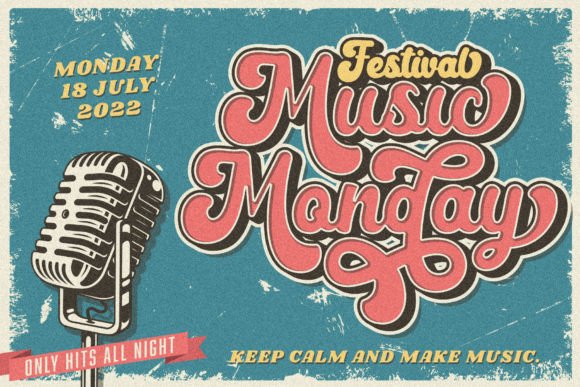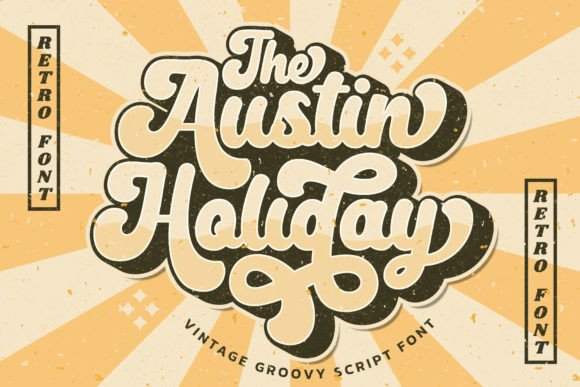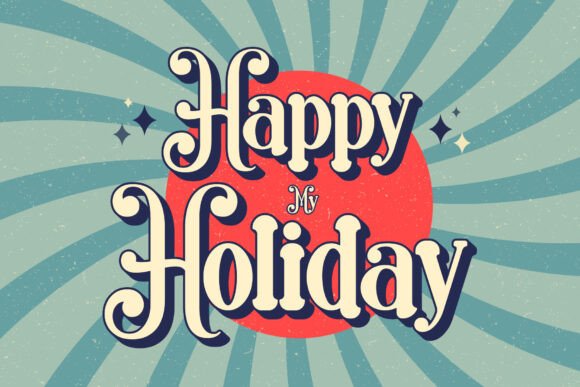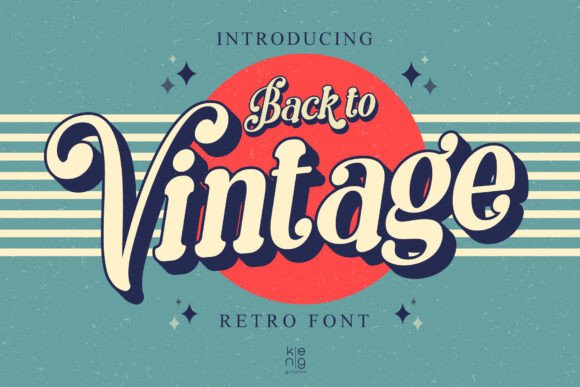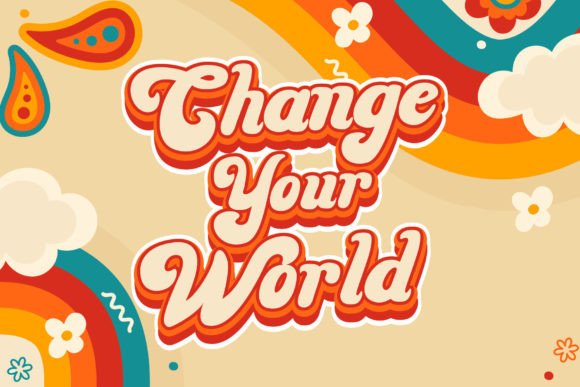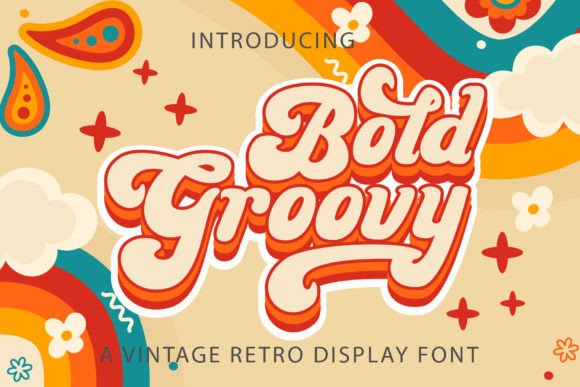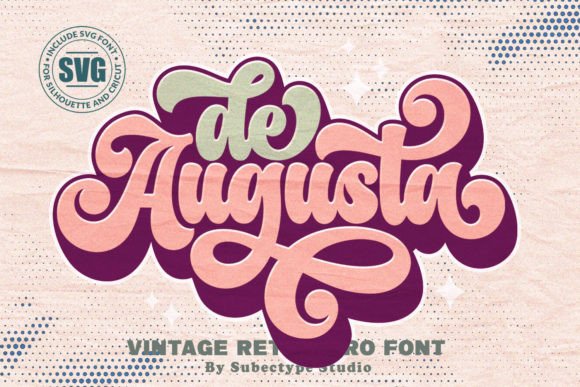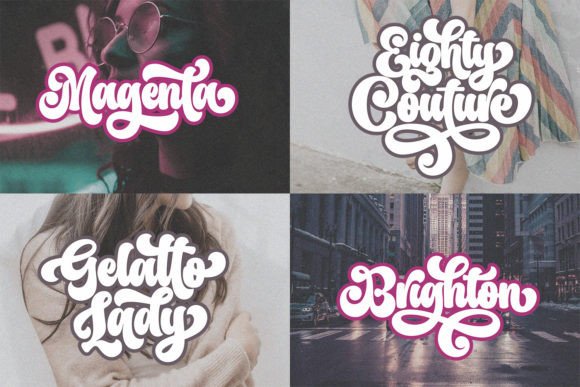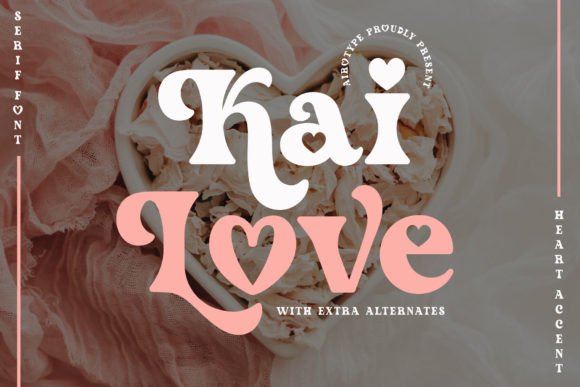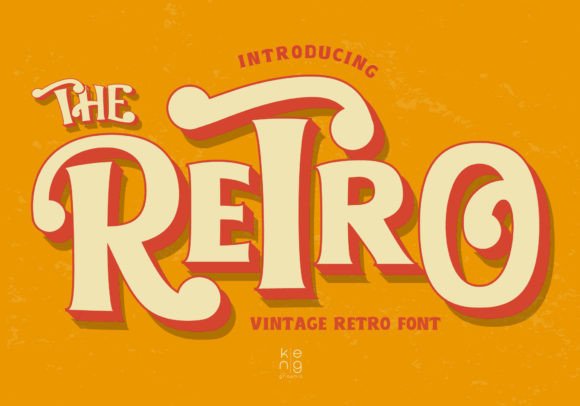
16 Classic Vintage Fonts with a Modern Twist
Classic vintage fonts never really disappear—they simply return with a fresh perspective. Today’s designers are blending timeless letterforms with cleaner proportions, refined details, and modern versatility to create typography that feels nostalgic without looking outdated. Whether inspired by Art Deco elegance, mid-century advertising, or the bold curves of the 70s, these fonts add personality while staying relevant for contemporary branding.
In this collection, you’ll discover 20 classic vintage fonts with a modern twist, carefully selected for logos, packaging, branding, editorial layouts, posters, and creative projects. From sophisticated retro serifs and bold display typefaces to handcrafted vintage lettering, each font captures the charm of the past while fitting seamlessly into today’s design trends.
What You’ll Find in This Collection
• Classic vintage serif fonts with updated proportions
• Retro-inspired display fonts for logos and headlines
• Mid-century and 70s-style typography
• Elegant Art Deco-inspired letterforms
• Handcrafted vintage fonts for branding and packaging
• Modern retro fonts with alternate glyphs and ligatures
How to Use Classic Vintage Fonts
Classic vintage fonts work best when they’re paired with modern design principles. Here are a few tips to keep your typography feeling timeless instead of dated:
• Choose one vintage era and build your visual identity around it.
• Reserve decorative vintage fonts for logos, headlines, and hero text.
• Pair them with a clean sans-serif for body copy to improve readability.
• Take advantage of stylistic alternates and ligatures to add authentic retro character.
• Keep layouts clean and spacious so the typography becomes the focal point.
Retro Groove Vintage Font
Retro Groove is a bold display font inspired by the iconic typography of the 1970s, featuring playful curves and dynamic letterforms full of personality. I love using it for retro branding, posters, logos, album covers, packaging, apparel, and eye-catching headlines because its wavy shapes create a fun sense of movement and energy. The nostalgic yet versatile design adds instant vintage charm, making every project feel vibrant, expressive, and unmistakably groovy.
De Augusta Vintage Font
De Augusta is a bold vintage display font inspired by the iconic typography of the 70s and 80s. I enjoy using it for retro branding, logos, badges, posters, T-shirt designs, packaging, signage, book covers, and apparel because its strong letterforms instantly capture the nostalgic spirit of classic design. The combination of vintage character and bold styling makes every project feel eye-catching, authentic, and full of timeless retro personality.
Back to Vintage Font
Back to Vintage is a retro display font inspired by the iconic typography of the 60s, 70s, and 80s. I love using it for vintage branding, posters, logos, packaging, apparel, signage, and social media graphics because its bold, rounded letterforms instantly evoke a nostalgic feel. The soft curves and distinctive retro styling give every design a warm, playful personality, making it an excellent choice for projects that celebrate classic vintage aesthetics with a modern twist.
Sunday Vibes Vintage Font
Sunday Vibes is a groovy script display font inspired by the free-spirited typography of the 60s and 70s. I enjoy using it for retro branding, posters, album covers, apparel, packaging, social media graphics, and bold headlines because its flowing hand-drawn strokes and playful curves create a fun, nostalgic atmosphere. The exaggerated loops and whimsical letterforms give every design a carefree personality, making Sunday Vibes a perfect choice for projects that celebrate vintage style with a cheerful, expressive twist.
Retro Script Vintage Font
Retro Script is a stylish handwritten font that captures the charm of classic vintage lettering with a relaxed, nostalgic feel. I love using it for retro branding, logos, invitations, wedding stationery, packaging, social media graphics, and creative merchandise because its smooth handwritten strokes add warmth and personality. The timeless retro style brings an authentic vintage touch to every design, making projects feel playful, memorable, and effortlessly eye-catching.
Masterday Vintage Font
Masterday is a stylish retro handwritten font that combines vintage charm with smooth, expressive lettering. I enjoy using it for retro branding, logos, posters, packaging, apparel, invitations, social media graphics, and creative merchandise because its flowing strokes create a warm and nostalgic feel. The bold handwritten style adds personality and authenticity, making every design look eye-catching, timeless, and full of retro character.
Loved Vintage Font
LOVED is a bold vintage stamp typeface that combines classic retro charm with versatile modern styling. Featuring both a distressed textured version and a clean solid style, I love using it for Valentine’s Day designs, greeting cards, mugs, T-shirts, tote bags, posters, stickers, packaging, invitations, and print-on-demand products. Inspired by traditional rubber stamps, its strong letterforms create an authentic handcrafted look, making every design feel nostalgic, eye-catching, and full of personality. Whether you’re creating romantic graphics or vintage-inspired branding, LOVED delivers a timeless display style with exceptional versatility.
Retro Lettering Vintage Font
Retro Lettering is a bold display font inspired by the iconic typography of the 1970s, bringing vintage charm and playful personality to modern designs. I love using it for logos, branding, posters, social media graphics, product packaging, advertisements, and eye-catching headlines because its retro-inspired letterforms create a fun and memorable visual impact. The balanced typography and nostalgic style make every project feel vibrant, expressive, and effortlessly groovy while maintaining a clean, professional finish.
The Retro Vintage Font
The Retro is a clean vintage display font inspired by the iconic typography of the 70s and 80s. I enjoy using it for retro branding, logos, posters, packaging, apparel, signage, album covers, and social media graphics because its smooth letterforms instantly capture the charm of classic vintage design. The bold, nostalgic style adds personality and timeless appeal, making every project feel eye-catching, authentic, and effortlessly retro.
Rambors – Nostalgic Retro Vintage Font
Rambors is a striking multiline display font inspired by the bold typography of the 70s, blending nostalgic retro aesthetics with a modern futuristic twist. I love using it for posters, flyers, motion graphics, stickers, branding, album covers, and bold headlines because its layered letterforms create a dynamic and eye-catching visual impact. The all-caps design, alternate characters, and unique uppercase and lowercase variations offer endless creative possibilities, making Rambors a perfect choice for projects that demand energy, personality, and unmistakable retro flair.
Kai Love Vintage Font
Kai Love is a charming modern serif font that blends contemporary elegance with vintage-inspired romance. Featuring adorable heart accents, I love using it for Valentine’s Day designs, wedding stationery, stickers, T-shirts, sublimation projects, greeting cards, quotes, branding, and social media graphics because it instantly adds warmth and personality. The combination of refined serif letterforms and playful romantic details creates a timeless, lovable style that makes every design feel heartfelt, elegant, and full of charm.
Retro Hungry Vintage Font
Retro Hungry is a groovy display font that combines fresh modern styling with the nostalgic charm of retro typography. I enjoy using it for logos, branding, posters, stickers, wedding invitations, crafting projects, sublimation designs, packaging, and social media graphics because its bold letterforms create a fun and energetic visual impact. The playful retro character adds warmth and personality, making every design feel vibrant, eye-catching, and full of vintage-inspired charm.
Bold Groovy Vintage Font
Bold Groovy is a vintage-inspired handwritten font that captures the playful spirit of retro typography with bold, expressive letterforms. I love using it for retro logos, branding, wedding invitations, packaging, stickers, T-shirts, social media graphics, and creative merchandise because it instantly adds warmth and nostalgic charm. Its smooth handwritten style and timeless vintage aesthetic make every design feel fun, eye-catching, and full of authentic 70s-inspired personality.
Neighbor’s Blanket Vintage Font
Neighbor’s Blanket is a cozy modern retro font that blends nostalgic charm with a fresh, contemporary style. I love using it for branding, logos, invitations, packaging, posters, social media graphics, and lifestyle designs because its rounded letterforms and playful curves create a warm, welcoming feel. The friendly, highly legible design brings comfort and personality to every project, making it a perfect choice for creative work that calls for a charming vintage-inspired aesthetic with a modern twist.
Austin Holiday Vintage Font
Austin Holiday is a playful retro script font that brings vintage charm and stylish personality to every design. I love using it for logos, branding, wedding invitations, stationery, social media graphics, packaging, and creative merchandise because its flowing script adds warmth and nostalgic character. The beautiful glyphs and swashes offer plenty of creative flexibility, making every project feel fun, expressive, and effortlessly inspired by classic retro typography.
What are the best vintage display fonts for branding in 2026?
The best vintage display fonts for branding capture the personality of a specific era while remaining versatile enough for modern design. In this collection, Quantum Deco is perfect for elegant Art Deco identities, Qrazx delivers bold Y2K energy, Miracle Groovy embraces playful 70s aesthetics, Devon adds classic sophistication, and Dreams American Diner recreates the charm of vintage Americana. Choose a style that reflects your brand story and pair it with a simple supporting font for a balanced identity.
How do I keep a vintage display logo from looking outdated?
The easiest way to create a timeless vintage logo is to combine retro character with modern design principles. Use your vintage display font for logos, headlines, or key branding elements, while relying on a clean sans serif for body copy and supporting information. Keep spacing consistent, avoid excessive decorative effects, and use alternate characters or ligatures sparingly to preserve authenticity without overwhelming the design.
Can vintage display fonts be used for body text?
Generally, no. Vintage display fonts are designed to attract attention at larger sizes rather than provide comfortable reading in long paragraphs. Their decorative details work beautifully for logos, headlines, packaging, and posters, but for articles or marketing copy, it’s best to pair them with a clean sans serif or a readable serif font that offers better legibility.
Choosing the right vintage display font for your brand
The best vintage display fonts for branding help tell a story while giving your visual identity a distinctive personality. Start by deciding which era best represents your brand, whether that’s Art Deco elegance, mid-century charm, groovy 70s style, or bold Y2K nostalgia. Then use that display font consistently for logos and prominent headings while keeping the rest of your typography simple and modern.